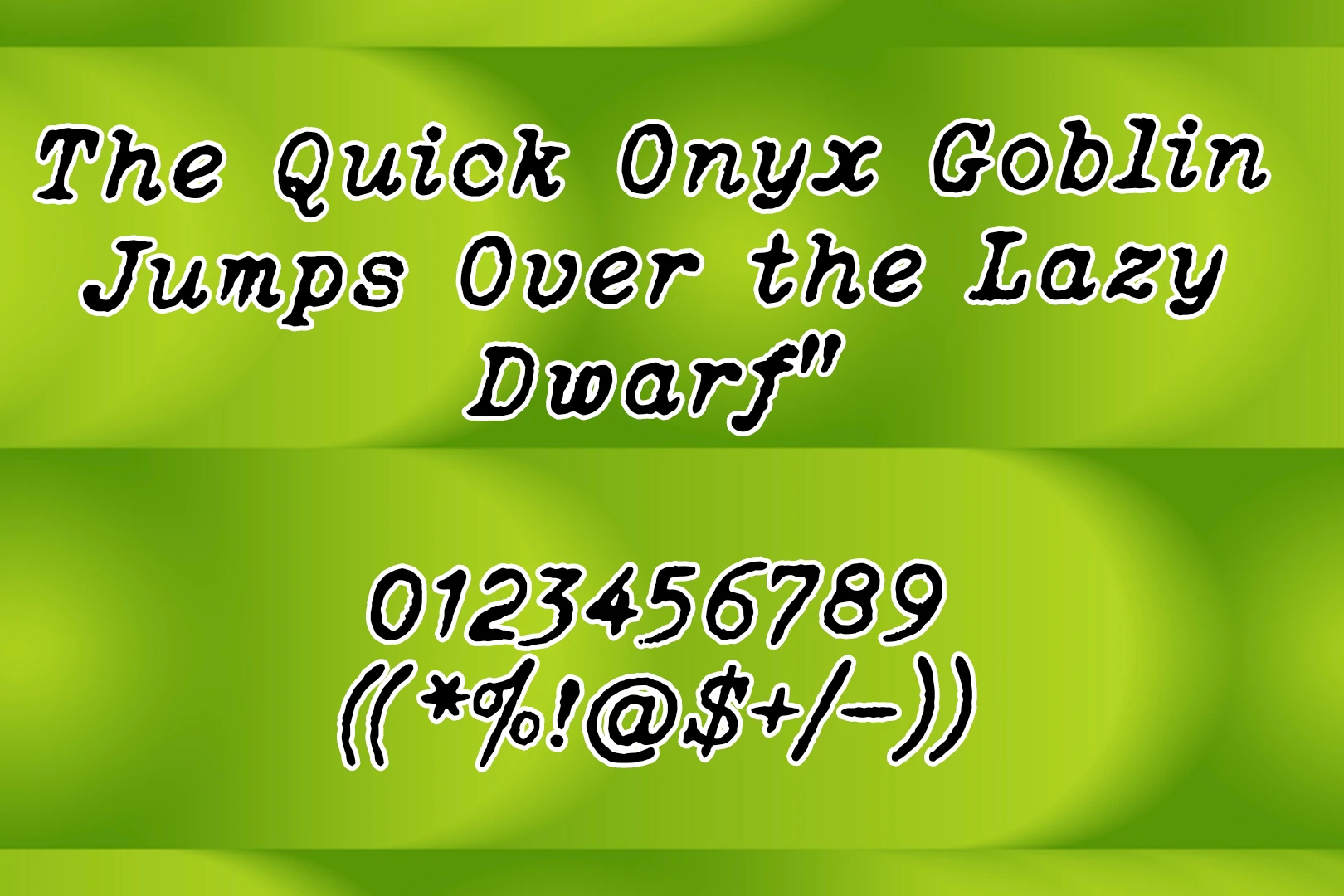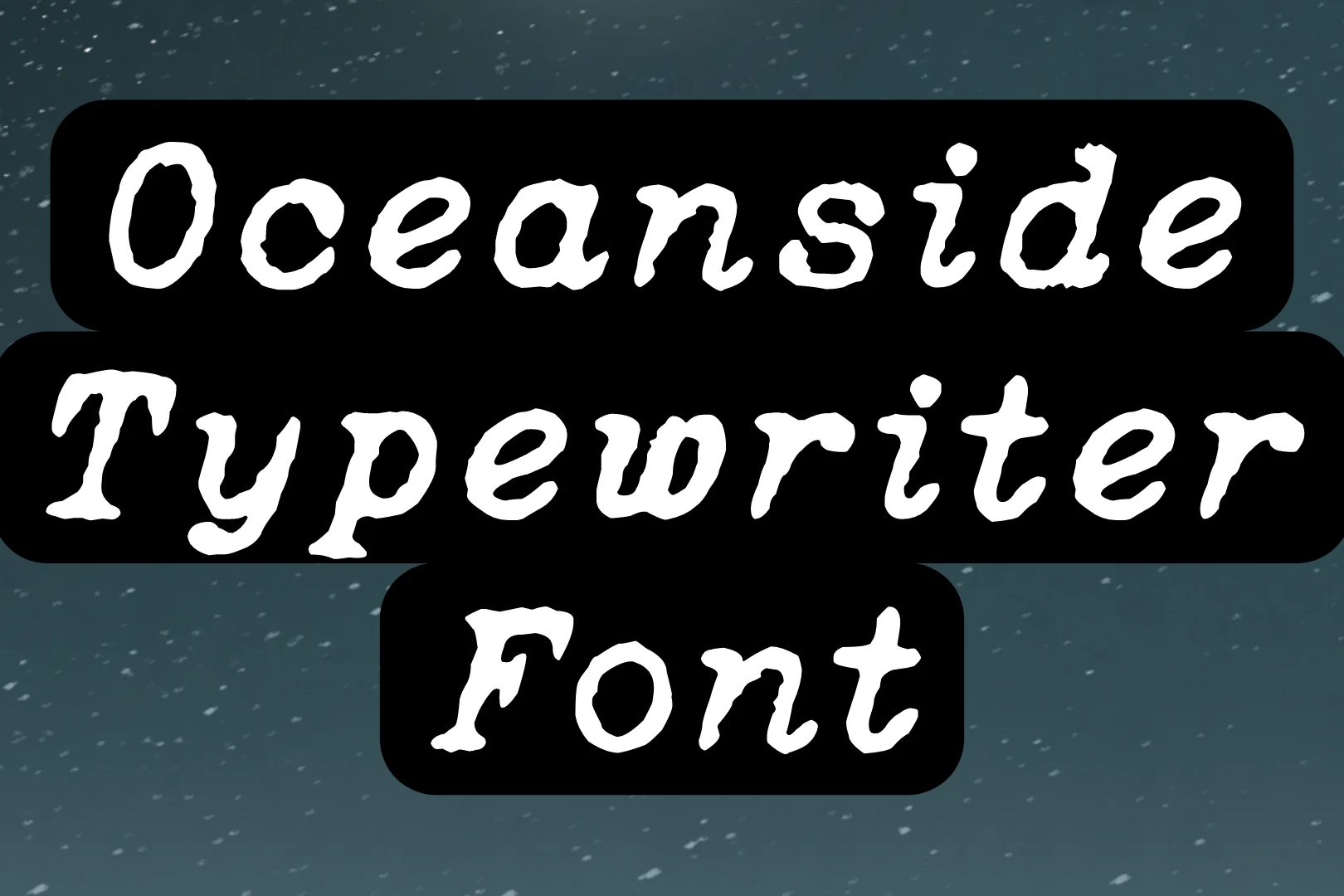
Oceanside Typewriter Font, is a brainchild of the creative mind Lukas Krakora, is a delightful fusion of nostalgia and modern design. Transporting us back to the era of classic typewriters, this font injects a unique character into contemporary projects, offering designers a distinctive touch that resonates with vintage charm.
Part of the fancy texture family, it boasts an array of unique alphabet characters and weights, including bold, italic, and regular. The magic of Shara Weber’s design is evident, transforming words into an expressive canvas with a flair that stands out.
This typewriter font, known for its monospaced characters and uniform spacing, seamlessly captures the mechanical charm of vintage typewriters. By pairing it with other fonts like Kaizen Seisaku Font, you can make stunning designs. From its cool philosophy to where it shines bright, we’re dishing out all the deets.
Usages of the Oceanside Typewriter Font: Where Style Meets Impact
The Oceanside Typewriter typeface is a design powerhouse, radiating versatility in every stroke. Its transformative impact can turn the ordinary into the extraordinary, making it a font of choice for various creative endeavors.
Nostalgia takes center stage when aiming for a retro or vintage aesthetic, and this Font is the go-to for that timeless feel. It adds a touch of sophistication to event branding, enhancing everything from concert posters to charity galas. Elevating editorial design is a breeze as the font injects personality into magazine headlines, subheadings, and pull quotes.
Does the Oceanside Typewriter texture include different weights or styles?
Yes! It comes in various styles and weights such as bold, italic, and regular. This font can also contain unique types of alphabet characters like uppercase letters, numerals, symbols, and many others.
What is Oceanside Typewriter texture?
It is a unique typeface designed by Lukas Krakora, combining the nostalgia of classic typewriters with a modern design aesthetic.
Who is the designer of Oceanside Typewriter Font?
The font was created by Lukas Krakora, a talented designer known for his creative approach to typeface design.
What style does Oceanside Typewriter Font fall under?
This Font falls under the typewriter font category, characterized by monospaced characters and uniform spacing.
How would you describe the characteristics of this font?
The font captures the essence of mechanical typewriters, offering monospaced characters while introducing subtle design elements that adapt to modern design trends.
Where can I use the Oceanside Typewriter texture in my design projects?
This stunning texture is versatile and suitable for various design projects, including branding, editorial work, digital media, and more.
In what applications can Oceanside Typewriter Font be applied?
This Font is suitable for a wide range of applications, including digital interfaces, social media graphics, branding materials, and more.